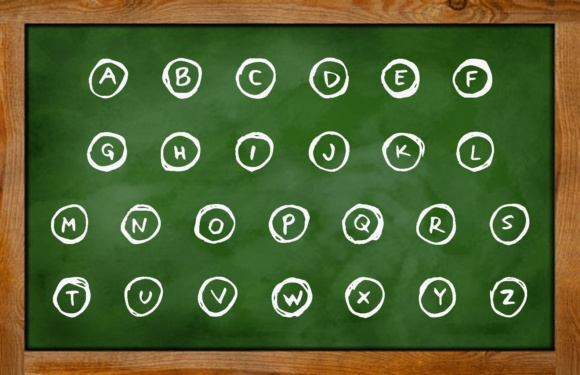
Introduction to Letters in Circles Font
Have you ever been working on a creative project and suddenly, the perfect font pops into your mind, elevating the entire design? That’s exactly what happens when you stumble upon the amazing Letters in Circles Font. This beautiful, decorative font is a treasure trove for designers, offering a unique way to add a touch of personality to any design project.
Whether you’re creating a t-shirt design, a banner for a special event, or a flyer for a new product, Letters in Circles Font is the perfect design resource to take your project to the next level. With its high-quality, transparent background, this font is a game-changer for any creative endeavor. And the best part? It’s available for a free download, making it accessible to designers of all levels.
Key Features of Letters in Circles Font
- Unique Design: This font features letters enclosed in circles, providing a creative and playful touch to any design project.
- High-Quality Resource: The Letters in Circles Font is a high-quality design resource suitable for a variety of creative projects, from illustrations to digital art.
- Transparent Background: The font includes transparent backgrounds, allowing designers to easily overlay text on images or other design elements.
- Resolution: The font is optimized for high-resolution displays, making it perfect for use in digital design projects.
- Size: The font includes letters in various sizes, from small to large, allowing designers to customize their text to fit their specific needs.
Honest Review: Letters in Circles Font
I recently stumbled upon the Letters in Circles Font, a design resource that caught my eye with its unique and playful style. As a designer, I was excited to explore this font and see if it could bring some creativity to my next project.
What works well with the Letters in Circles Font is its versatility. It’s perfect for creating eye-catching titles, quotes, and even logos. The font is highly customizable, allowing you to adjust the color, size, and opacity to fit your design needs. I also appreciate the transparent background option, which makes it easy to layer over images or other design elements.
- ✨ Unique and playful style
- ✨ Highly customizable
- ✨ Transparent background option
- ✨ Suitable for creative projects
However, I do have a few limitations to mention. The font is not ideal for body text, as it can be difficult to read at smaller sizes. Additionally, the font may not be suitable for formal or professional projects, as it has a more casual and whimsical feel.
Overall, I’m impressed with the Letters in Circles Font, and I think it’s a great addition to any designer’s toolkit. While it may not be perfect for every project, it’s definitely worth exploring for your next creative project.
Letters in Circles Font
The Letters in Circles Font is a versatile design resource ideal for creative projects. With its high-quality, transparent background, this font can be easily integrated into various design applications.
For the most effective use of the Letters in Circles Font:
- Experiment with different font sizes and colors.
- Combine the font with other design elements for a unique look.
- Use the font to create eye-catching titles and headings.
Common use cases for the Letters in Circles Font include:
- Graphic design projects.
- Wedding invitations and party decorations.
- Children’s educational materials.